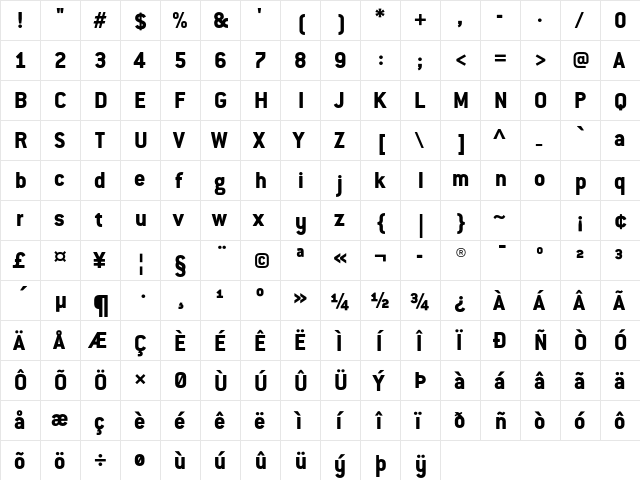
ConduitITCStd ExtraBold Font Preview
| Foundry | International Typeface Corporation |
| Designer | Mark van Bronkhorst, MvB Design |
Design Context for ConduitITCStd Typeface
ConduitITCStd takes a measured approach to typography — its balanced proportions and neutral character make it a reliable workhorse for both digital and print work. The heavy weight commands attention and anchors typographic hierarchies. The condensed width makes it efficient for tight spaces without sacrificing legibility.